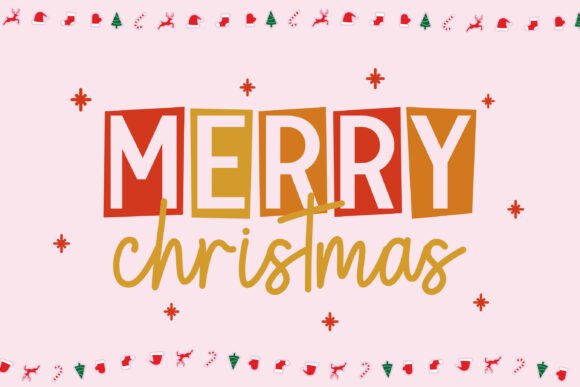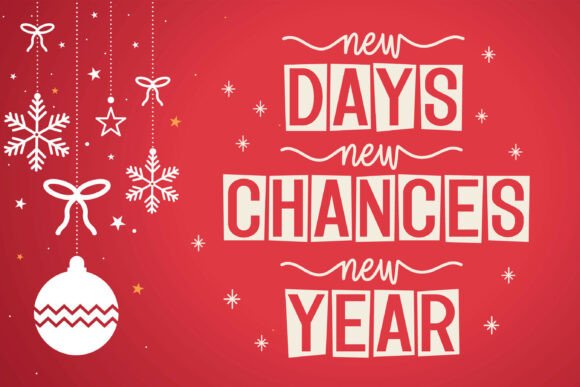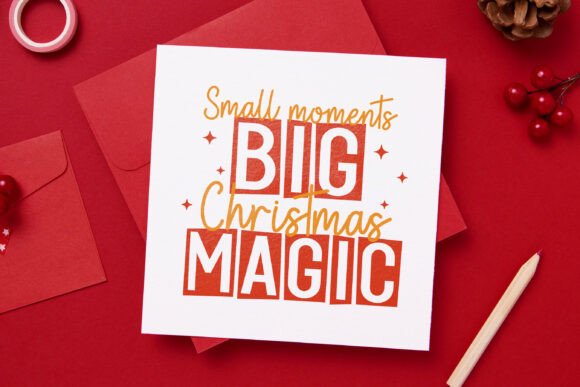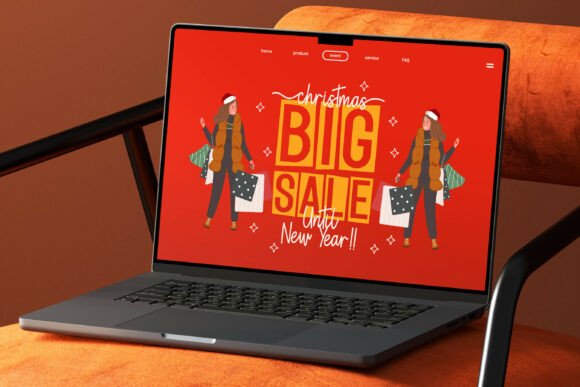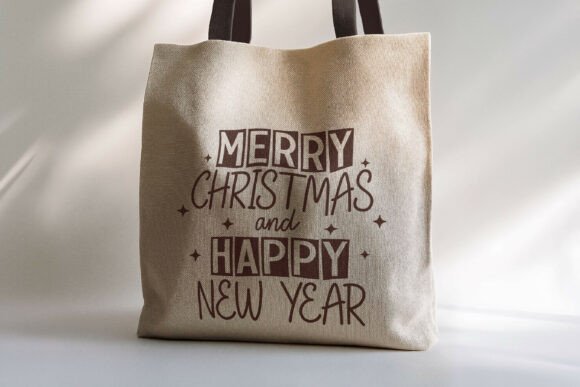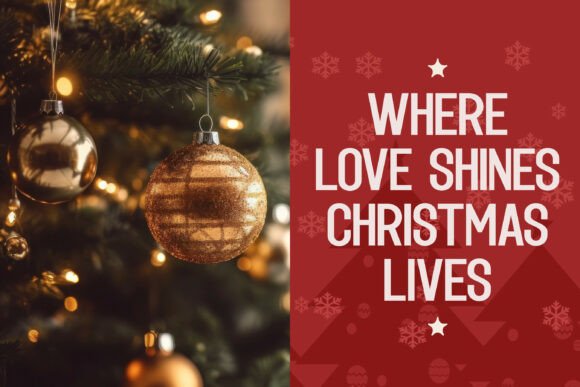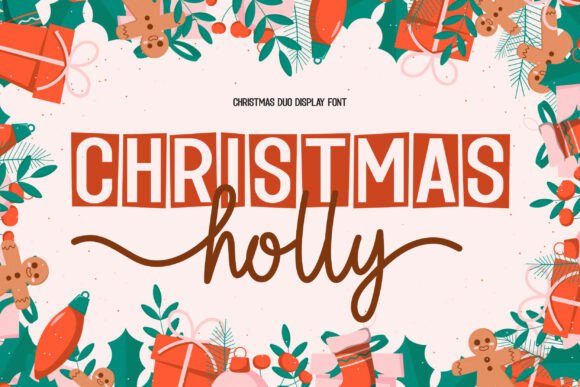
Introducing Christmas Holly Duo Font: The Ultimate Holiday Display Font
Are you looking for the perfect font to add a touch of festive magic to your holiday projects? Look no further than the Christmas Holly Duo Font! This joyful Christmas duo display font is designed to capture the essence of the holiday season, bringing together a bold block-style uppercase display font and a smooth handwritten script in one charming package.
A Perfect Pair: Bold and Beautiful
The Christmas Holly Duo Font features a bold block-style uppercase display font that exudes confidence and festivity. Paired with a smooth handwritten script, this duo offers the perfect combination of fun, coziness, and Christmas cheer. The bold font is perfect for grabbing attention and making a statement, while the handwritten script adds a touch of elegance and sophistication.
Evoking the Magic of the Holiday Season
Each letter in the Christmas Holly Duo Font is carefully designed to evoke the warmth of holiday gatherings, the sparkle of winter décor, and the excitement of gift-giving moments. Whether you’re creating festive invitations, holiday cards, or winter-themed crafts, this font is sure to bring your projects to life. The Christmas Holly Duo Font is the ideal choice for designers and crafters looking to add a touch of holiday magic to their work.
The Christmas Holly Duo Font is incredibly versatile, making it perfect for a wide range of projects. Here are just a few ideas to get you started:
- Festive invitations and holiday cards
- Winter-themed crafts, such as snowflakes, ornaments, and gift tags
- Holiday-themed social media graphics and posts
- Christmas party decorations and banners
- Gift wrapping and packaging
Why Choose Christmas Holly Duo Font?
So why choose the Christmas Holly Duo Font for your holiday projects? Here are just a few reasons:
- Unique and eye-catching design: The Christmas Holly Duo Font features a unique and eye-catching design that’s sure to stand out from the crowd.
- High-quality and versatile: This font is high-quality and versatile, making it perfect for a wide range of projects and applications.
- Easy to use: The Christmas Holly Duo Font is easy to use and can be easily integrated into your design or crafting projects.
Tips for Using Christmas Holly Duo Font
Here are a few tips for using the Christmas Holly Duo Font in your holiday projects:
- Mix and match: Experiment with mixing and matching the bold block-style uppercase display font with the smooth handwritten script to create visually interesting and dynamic designs.
- Add festive colors: Add festive colors to your designs, such as red and green, to really make your projects pop.
- Use with images: Use the Christmas Holly Duo Font with images of holly, snowflakes, or other winter-themed graphics to create cohesive and festive designs.